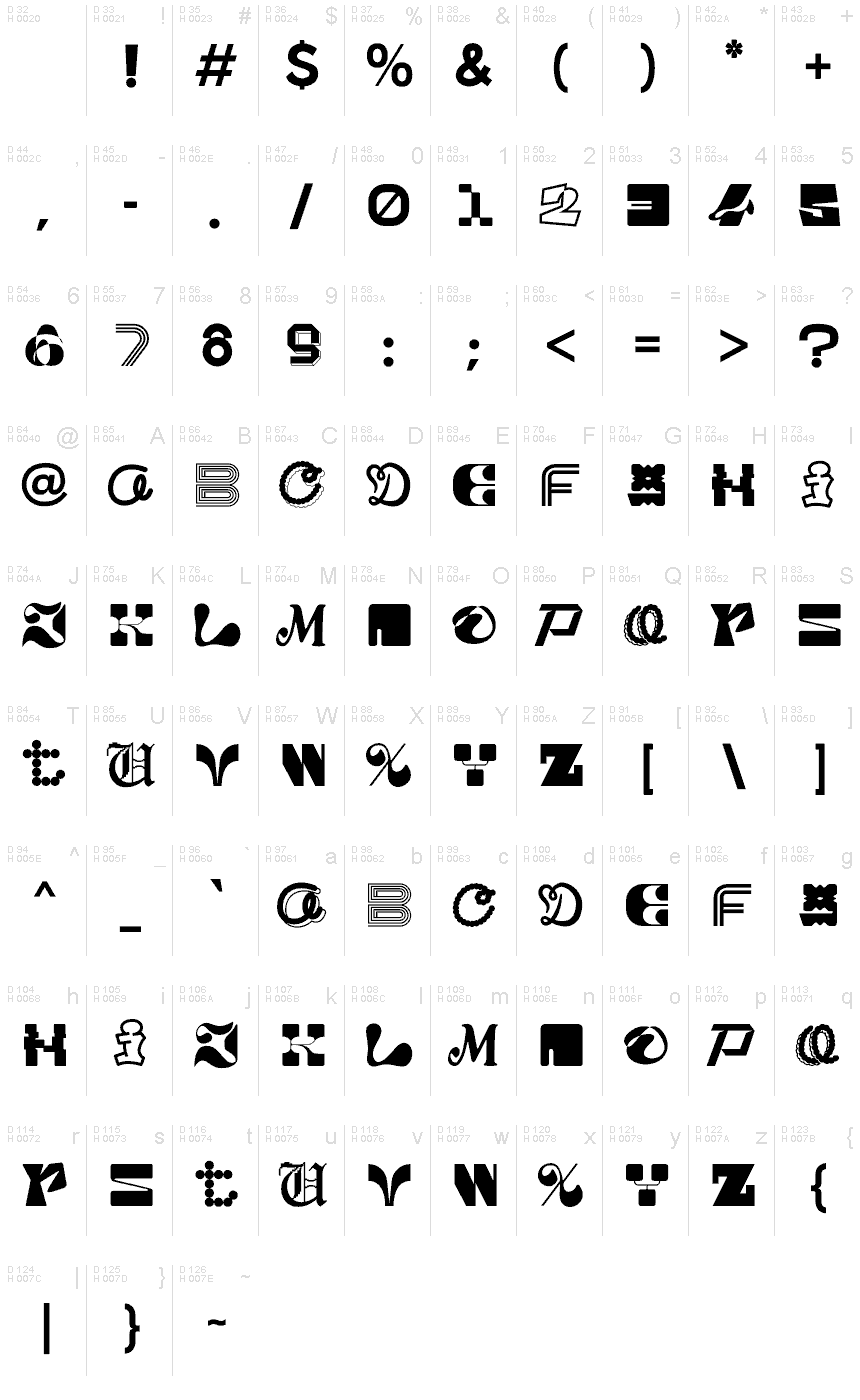
MGN Kinetic Display 4
MGN Kinetic Display 4 font, created by Studio Morgana.id, is an expanded bold display type with a decorative nature and geometric influences. Lettering comes with partially shaded straight sections and abstract round shapes that allow for experimental usage in designs. Eclectic with its style and visually bold from far away or close-up – this font impresses with artistic flair.